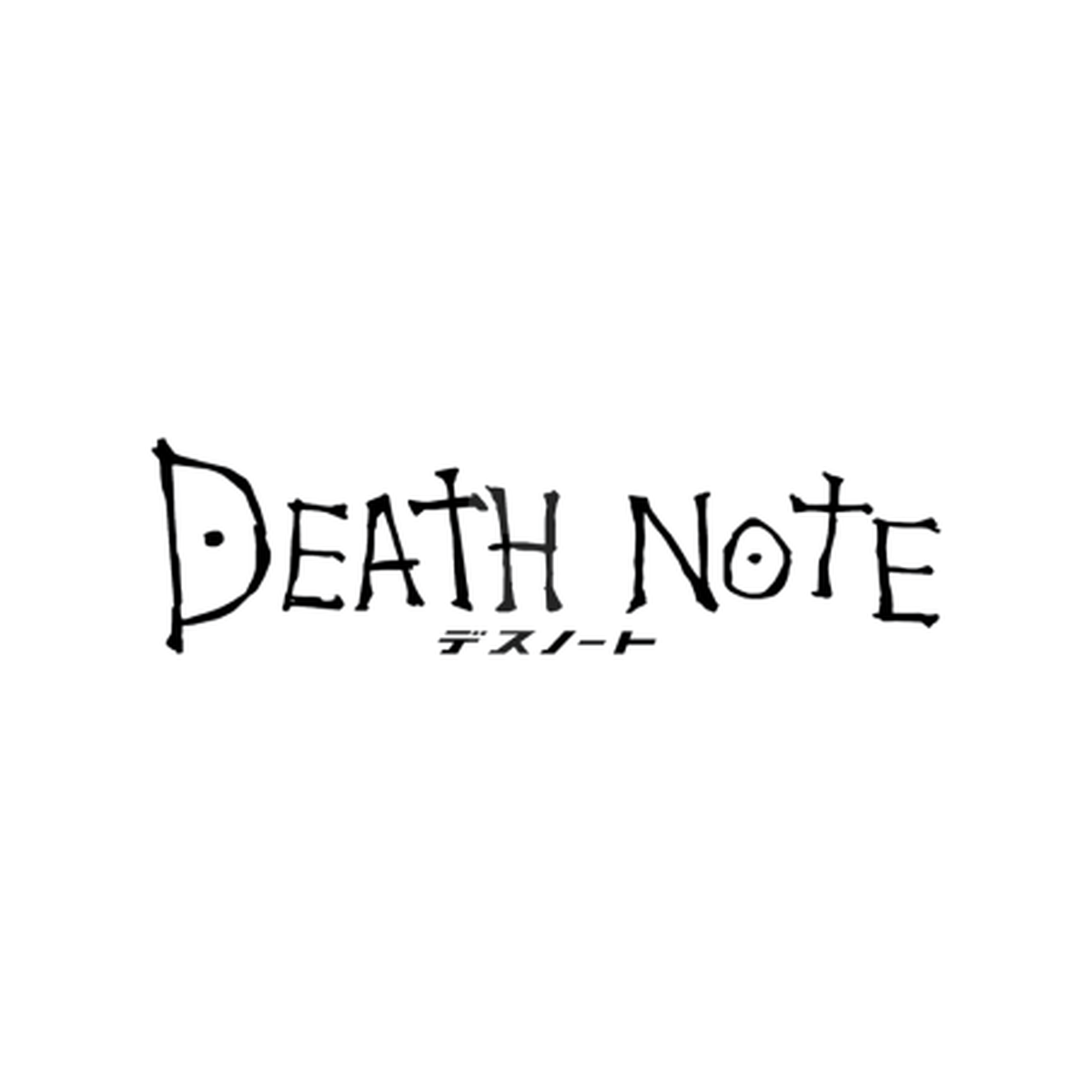
About Death Note
Death Note is a manga written by Tsugumi Ohba and illustrated by Takeshi Obata, serialised in Weekly Shonen Jump from 2003 to 2006 and adapted into a 37-episode anime in 2006. Its premise — a student finds a notebook that kills anyone whose name is written in it — drives a psychological duel between Light Yagami and the detective L that has kept the series in print for two decades.
The logo matches the material at the centre of the story. The lettering is thin and spidery, drawn with visible hand-inked irregularity, tall condensed proportions and sharply pointed apexes — it reads as something scratched into a notebook rather than typeset. A distinctive quirk carries through the set: small ink dots sitting inside the closed counters of letters like D, O and R, a detail that survives across every regional edition.
What font does Death Note use?
Death Note uses The Death Note logo is custom hand-drawn lettering created for the manga, not a licensed typeface. Recreations circulate under the name Death Note, all approximating the original spidery ink drawing.
Where this style works
Thin hand-inked display lettering suits anything gothic, occult or unsettling: horror and thriller titles, dark-fantasy book covers, metal and darkwave album art, tattoo and occult-adjacent branding, Halloween graphics, and editorial work that wants an unsteady, handwritten menace. The irregularity is the point — regularise the strokes and it stops being frightening.
What fonts are similar to the Death Note logo?
For a similar spidery hand-drawn quality, look at Nosifer, Creepster and Butcherman among free options, or Feast of Flesh and Deutsche Zierschrift for a more gothic register.
Death Note Font: Mica Trace